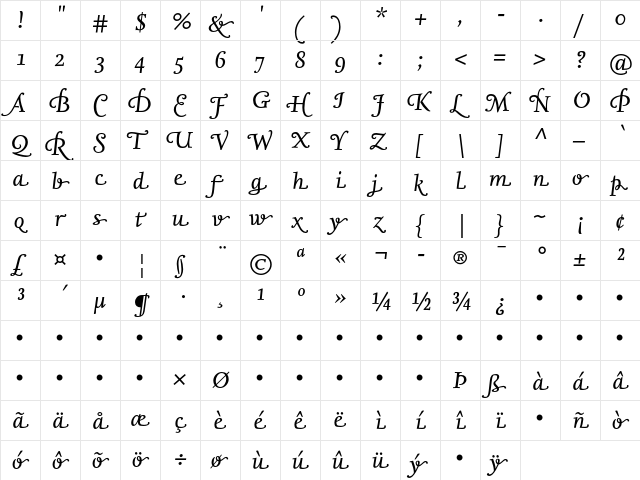
NexusSerif-ItalicSwashTwo Regular
Design Context for NexusSerif-ItalicSwashTwo Typeface
NexusSerif-ItalicSwashTwo brings a calligraphic fluidity to the page — its connecting strokes and expressive curves give it an unmistakably human quality.
Font Pairing: Combine NexusSerif-ItalicSwashTwo with a simple geometric sans for maximum contrast — the tension between flowing curves and clean structure is a classic typographic pairing.
Pro Tip: Use NexusSerif-ItalicSwashTwo for short runs of text — names, titles, or taglines. Extended body copy in script faces tires the eye quickly.